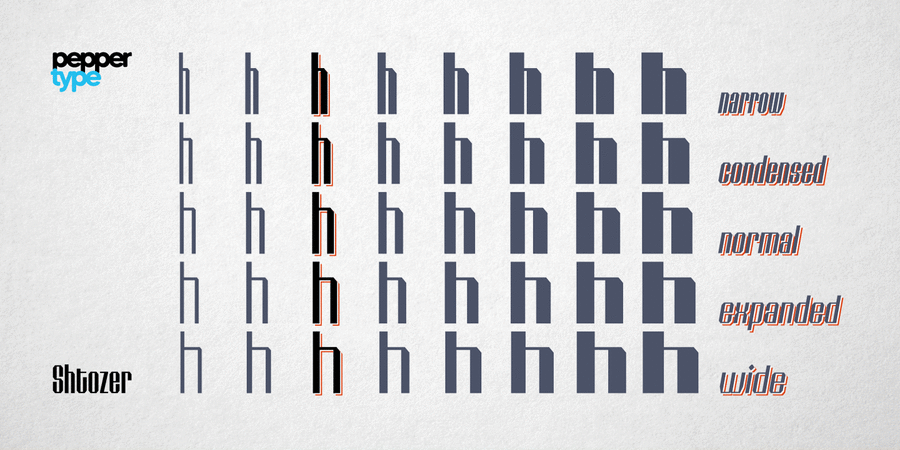
About Shtozer 300The light version of Shtozer. A retro-themed display typeface based on designs of 1960s and 1970s and additionally inspired by Cyrillic ornate lettering Vyaz. It comes in 8 weights, with 5 width variations each, all accompanied with respective obliques – making 80 styles altogether. Shtozer is a font family with extensive language coverage including Cyrillic script. It also contains numerous OpenType features and alternate glyphs to vivify the typesetting. The typeface was designed by Oleh Lishchuk in 2020.
Associations for font family Shtozer 300Typeface personality and character:
computer, electronic, youth, flat, accurate, logical, automatic, technogenic, solid, static, cutting, crisp, stable, rectangular, urban, machine, engineering, urbanistic, schematic, reliable, self-assured, steel, convincing, serious, strong, industrial, iron, manly, military, futuristic, broken, angular, notable, splashy, active, workman, cinematic, faceted, rhythmic, loud, close-fitting, powerful, sharp, tall, heavy, original, game, sportive, urgent, daring, fast, resolute, important, high-speed, racing, cold, army, slim, vigorous, square, space
Typeface associated with activities:
computer, constructor, scheme, engineer, automation, urban studies, electronics, car, tool, robot, game, equipment, device, machine, Shooter, action, airsoft, technology, android, hardware, sci-fi, cinema, lego, toy, cubes, skyscraper, sport, race, speed, wheelbarrow, computer game, rally, formula 1, cars, blockbuster, thriller, helmet, gadget, selfie, space, spaceship Typeface associated with age: